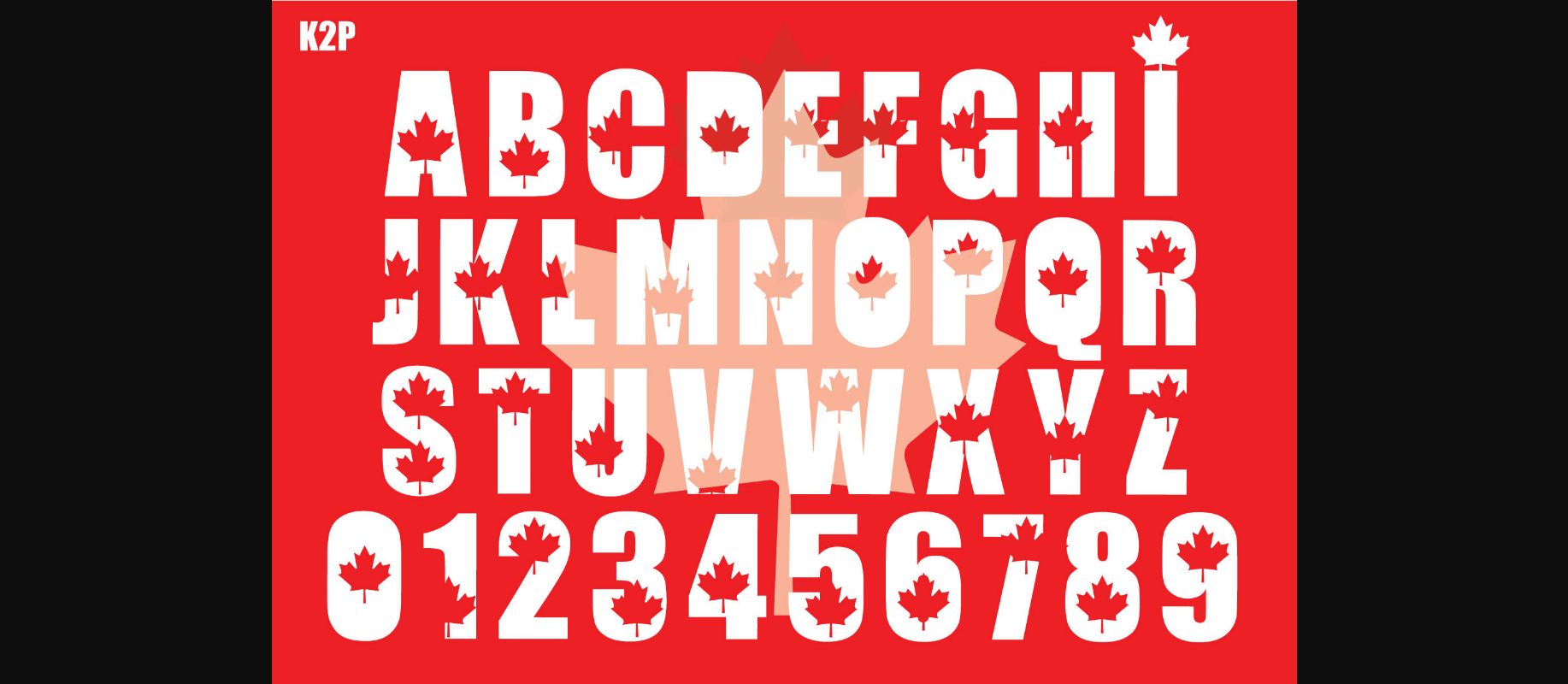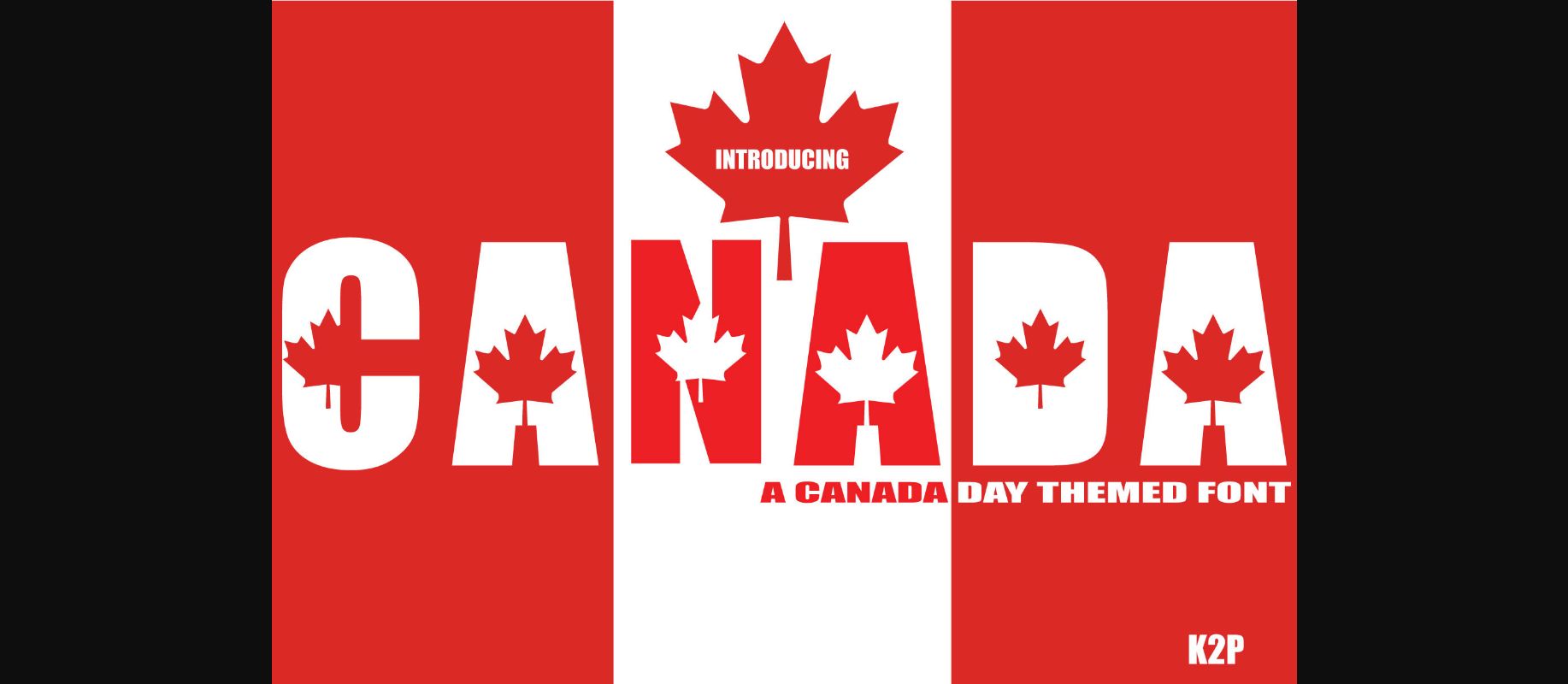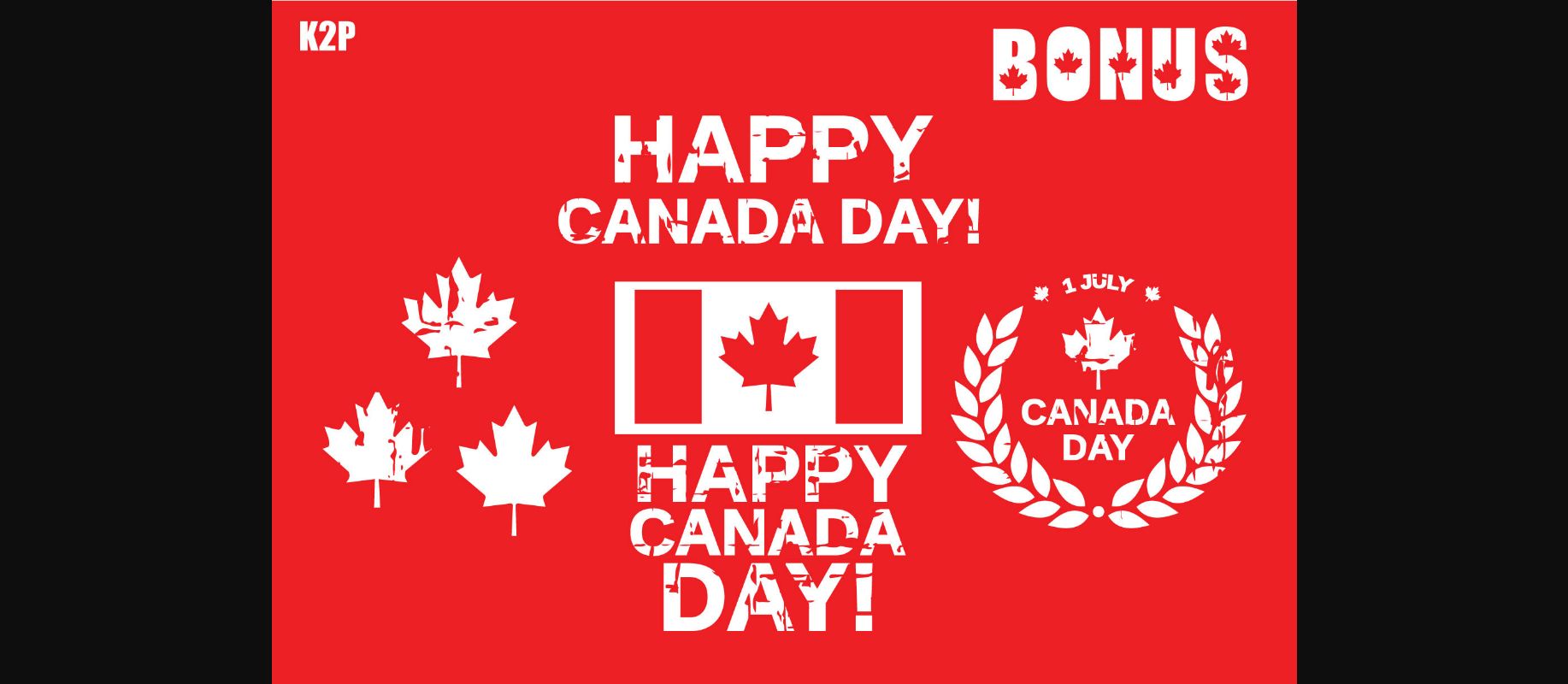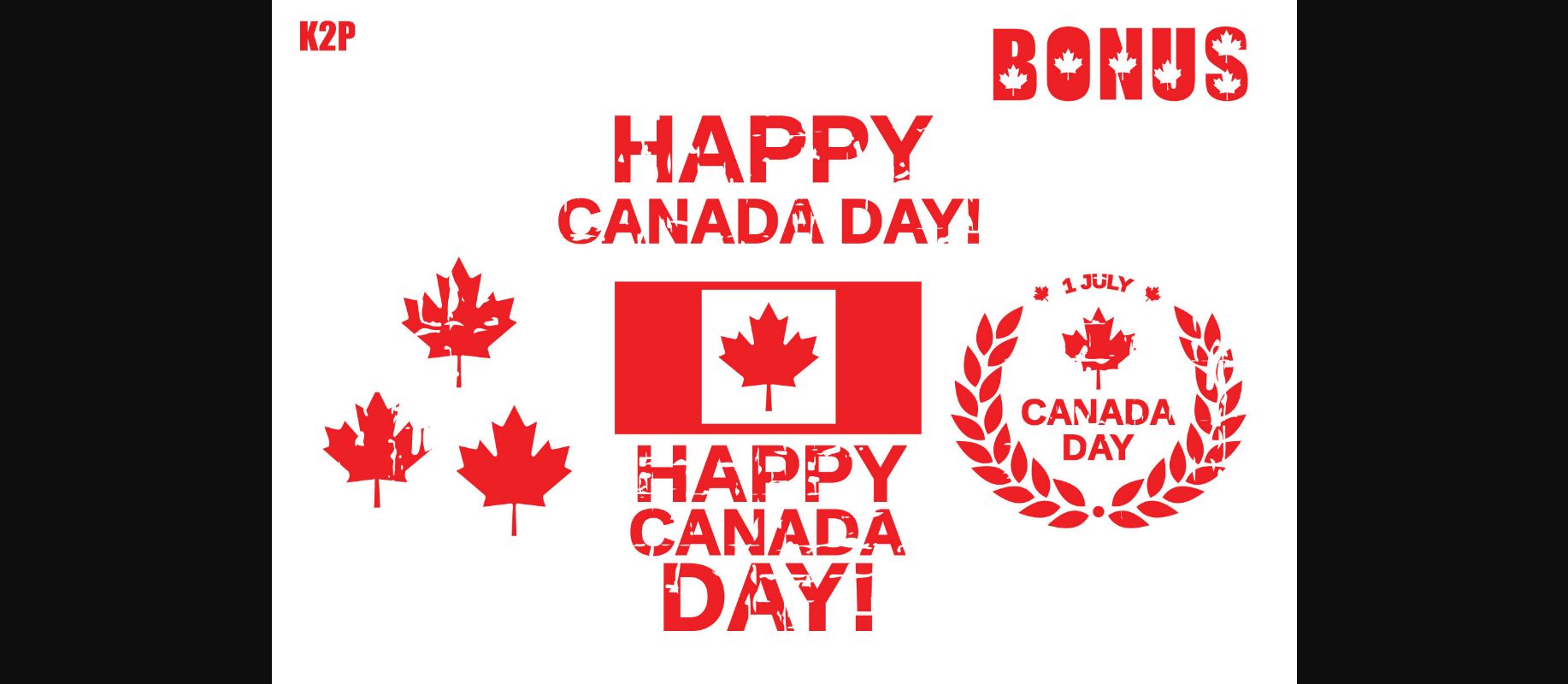
About Canada Font
Canada is a bold and incredibly cool decorative font. It can be used for various design ideas, particularly those related to the cool life in this amazing country. Have fun with this beautiful font and explore its endless variations.